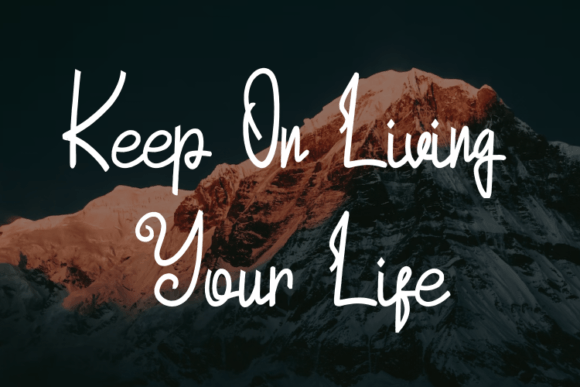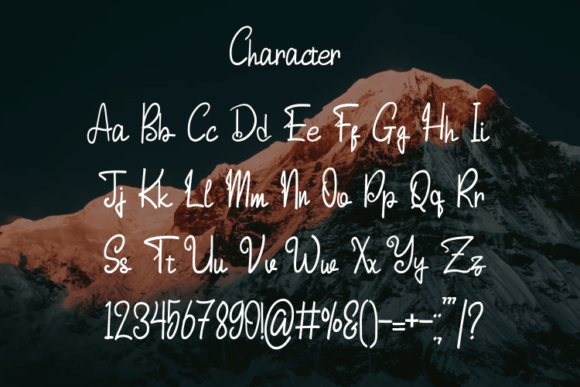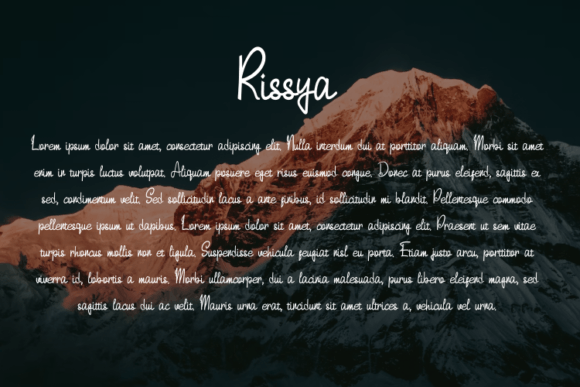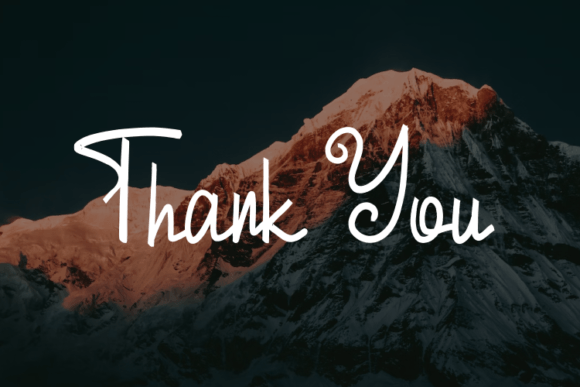
Introduction to Rissya Font
Rissya is a script typeface that has a simple style & modern look.
This typeface is perfect for an elegant & luxurious logo, book or movie design titles, fashion brands, magazines, clothing, fonts, quotes, and more .
Rissya Font offers exceptional quality and versatility, making it a valuable addition to your design toolkit. Whether you’re creating for personal projects or commercial use, Rissya Font delivers professional results.